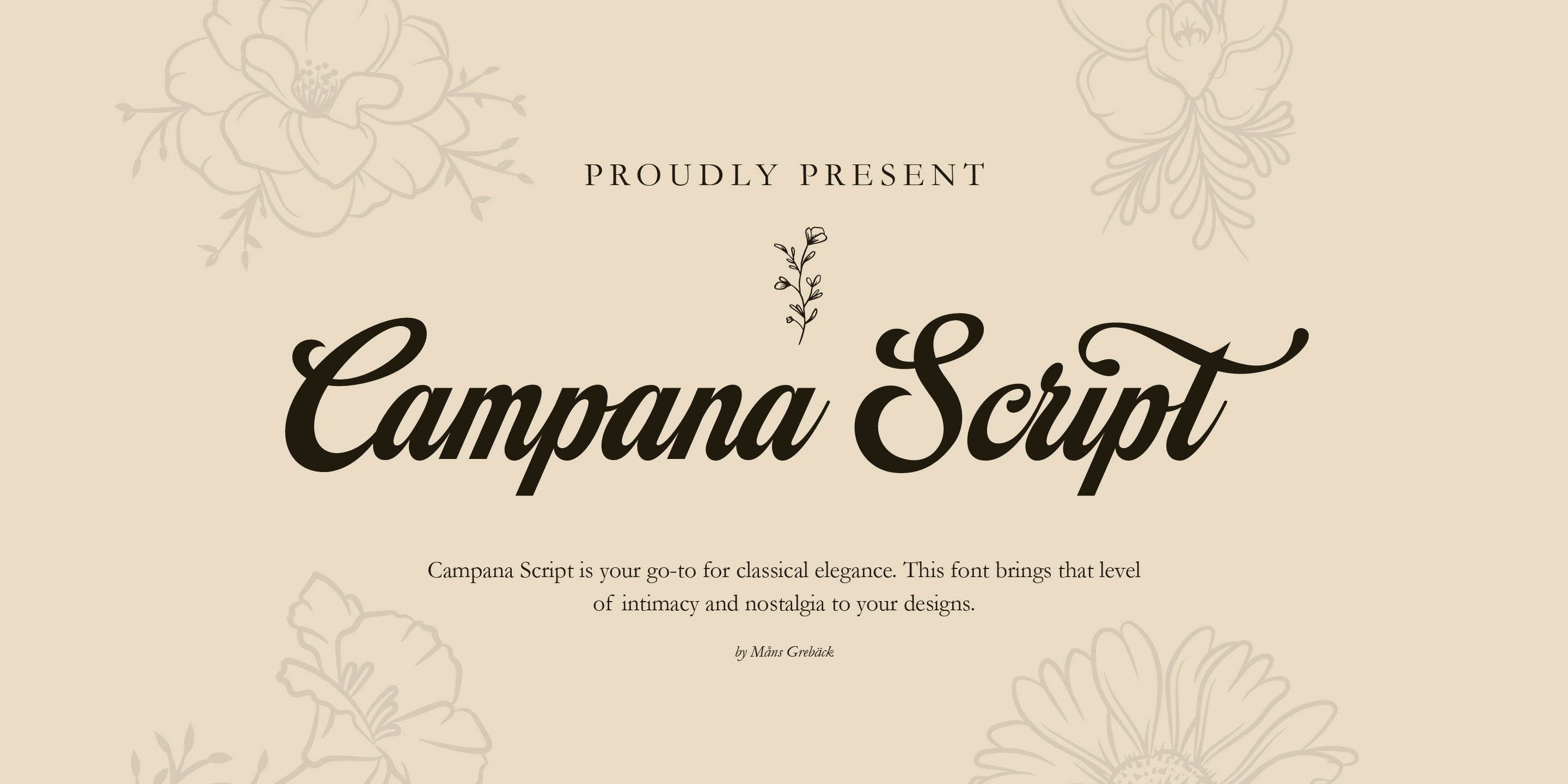
The Campana Script Font is an exquisitely elegant and free-flowing typeface, designed to capture the beauty and personal touch of sophisticated handwritten calligraphy. Its graceful connections, delicate flourishes, and harmonious rhythm make it an excellent choice for wedding invitations, luxury product branding, boutique logos, personalized stationery, high-end event signage, and feminine blog headers. Whether you're crafting a romantic bespoke item or a chic social media graphic, this font will infuse your project with a sense of refined artistry and heartfelt elegance.
What makes the Campana Script Font so exciting is its remarkable ability to mimic the natural flow and unique imperfections of genuine penmanship while maintaining outstanding legibility. It often features delightful swashes, ligatures, and stylistic alternates that allow for extensive customization and a truly bespoke look. This font is perfect for designers who want to create a sense of intimacy, luxury, or a timeless, affectionate appeal. It stands out by offering a handcrafted feel that's both approachable and elegant, making any text it graces feel uniquely special and thoughtfully created. The fluid movement between letters gives it a captivating rhythm, ensuring your message is conveyed with undeniable grace and style.
The Campana Script Font typically offers a versatile array of features to support diverse design needs. While specific offerings may vary depending on the font package, you can generally expect to find a Regular weight, often accompanied by a Bold version for added emphasis when a stronger presence is desired. Many versions of the Campana Script Font Free Download are rich in OpenType features, including numerous stylistic alternates, extensive ligatures (connecting letter pairs for a more natural flow), and a variety of elegant swashes that allow designers to customize the appearance of the script extensively. Some premium packages might also include initial and terminal forms for letters, offering even greater creative control over letter shapes and overall flow. This extensive set of features ensures that the Campana Script Font can be adapted to almost any design requirement, maintaining its consistent elegance and personal touch throughout your project.